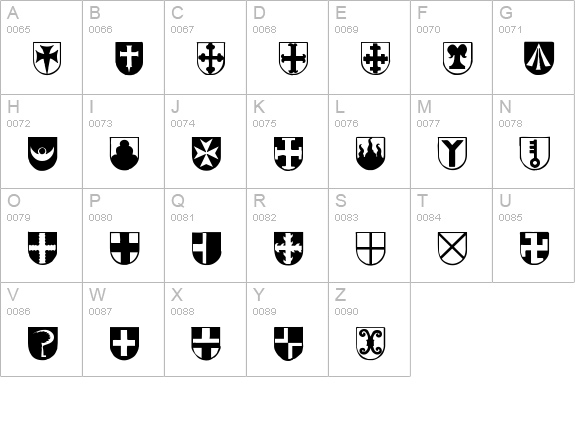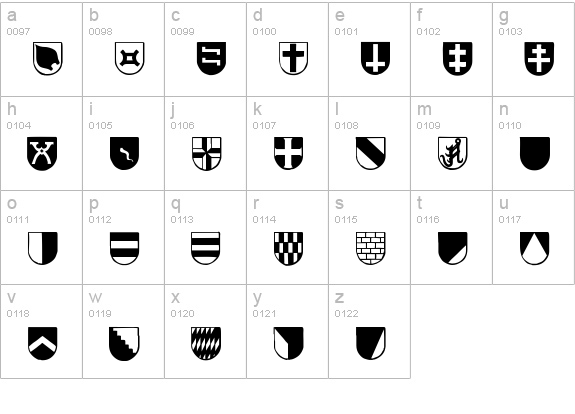
Herald Font Details
Herald font is a stunning typeface that exudes elegance and sophistication. With its timeless design and classic appeal, this font is perfect for adding a touch of refinement to any project. The sleek lines and sharp angles of Herald font make it a versatile choice for a wide range of design applications, from branding to editorial design. What sets Herald font apart is not just its striking appearance, but also the fact that it is completely free to download at FontsMarket.com. That's right, you can enhance your projects with this beautiful font without having to spend a penny. Whether you're working on a logo, website, or print material, Herald font will elevate your design and leave a lasting impression on your audience. Don't miss out on this fantastic opportunity to access a high-quality font for free. Download Herald font today and take your design projects to the next level!